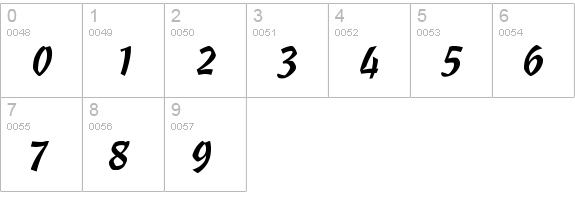
Wizzard Font Details
Introducing Wizzard font, a striking and versatile typeface that is sure to enchant your creative projects. With its captivating and mystical appeal, this font is perfect for adding a touch of magic to any design. Whether you're working on a logo, branding materials, or even a fantastical invitation, Wizzard font will effortlessly elevate your work to new levels of enchantment. This unique font boasts a whimsical and slightly vintage aesthetic, making it ideal for a variety of design applications. Its intricate letterforms, inspired by the mystical world of wizards and sorcery, will captivate your audience and leave a lasting impression. Each character is carefully crafted to convey a sense of mystery and wonder, making Wizzard font a truly captivating choice for your next project. And the best part? Wizzard font is available for free! That's right, this incredible typeface can be freely downloaded at FontsMarket.com. We believe that great design should be accessible to all, and by offering Wizzard font for free, we're giving you the opportunity to infuse your designs with a touch of magic without breaking the bank. So, whether you're a professional designer looking to add a dash of enchantment to your portfolio, or an amateur enthusiast eager to explore the realm of graphic design, Wizzard font is the perfect choice. With its unique charm and freely available download at FontsMarket.com, this font is bound to cast a spell on anyone who lays eyes on it. Unleash your creativity and embrace the magic of Wizzard font today.